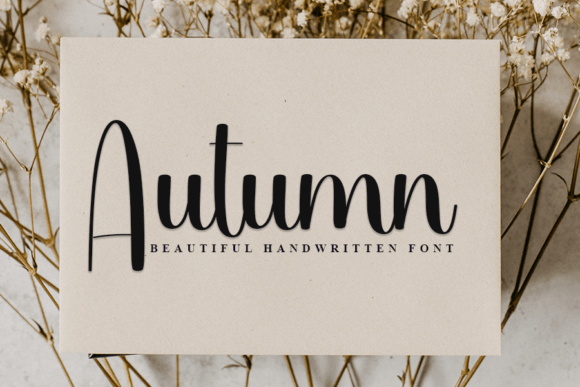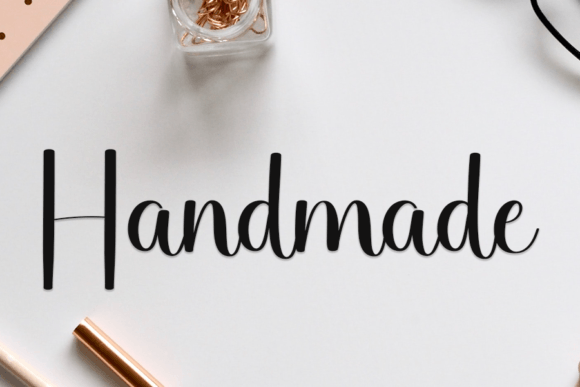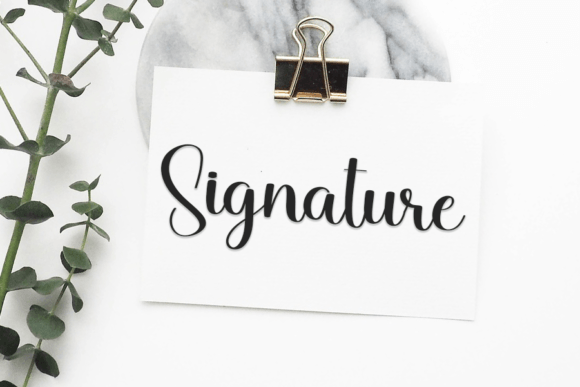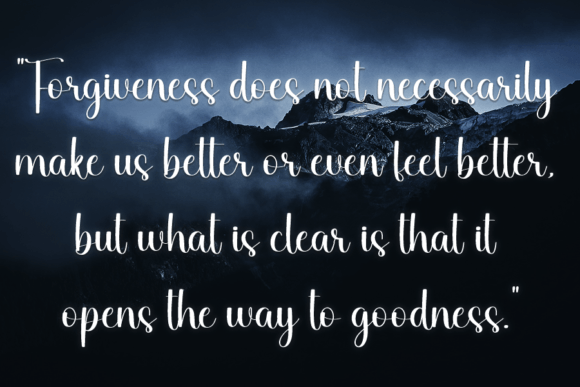
Discover the Elegance of Black Letter Font: A Delicate Handwritten Style for Unique Designs
In the world of typography, fonts play a crucial role in conveying the tone and personality of a design. Among the numerous font styles available, Black Letter Font stands out for its distinctive, delicate, and handwritten aesthetic. This versatile font is carefully crafted to add a touch of coolness and uniqueness to various design projects, making it an excellent choice for designers and crafters alike.
What is Black Letter Font?
Black Letter Font is a beautifully designed, handwritten font that exudes elegance and sophistication. Its intricate strokes and curves create a captivating visual experience, perfect for designs that require a personal touch. The font’s delicate nature makes it suitable for a wide range of applications, from formal letters and invitations to food product labels, titles, and more.
Characteristics of Black Letter Font
Black Letter Font boasts several characteristics that make it an attractive choice for designers:
- Delicate strokes: The font features gentle, hand-drawn strokes that give it a warm and intimate feel.
- Unique letterforms: Each letter is carefully crafted to create a distinctive and stylish appearance.
- Versatility: Black Letter Font can be used for various design projects, from digital to print.
- Elegant and sophisticated: The font’s refined aesthetic makes it perfect for designs that require a touch of luxury and refinement.
Uses of Black Letter Font
The versatility of Black Letter Font makes it suitable for a wide range of design applications:
- Invitations and greeting cards: Add a personal touch to your invitations and greeting cards with this beautiful, handwritten font.
- Food product labels: Create eye-catching labels for food products, such as artisanal cheeses, chocolates, or baked goods.
- Titles and headings: Use Black Letter Font to create stunning titles and headings for books, magazines, or websites.
- Branding and packaging: Incorporate this font into your brand’s identity to convey a sense of elegance and sophistication.
- Digital and print media: Black Letter Font can be used for both digital and print designs, including social media graphics, flyers, and brochures.
Tips for Using Black Letter Font
To get the most out of Black Letter Font, consider the following tips:
- Pair with contrasting fonts: Combine Black Letter Font with a sans-serif font to create a striking contrast and add visual interest to your design.
- Adjust font sizes: Experiment with different font sizes to create a hierarchy of information and add emphasis to specific design elements.
- Use subtle colors: Black Letter Font looks best with subtle, muted colors that allow the font’s delicate nature to shine.
Black Letter Font is a beautiful, delicate handwritten font that can elevate your designs to a new level of elegance and sophistication. Its versatility and unique aesthetic make it an excellent choice for designers and crafters looking to add a touch of coolness and refinement to their projects. Whether you’re designing invitations, food product labels, titles, or more, Black Letter Font is sure to impress.